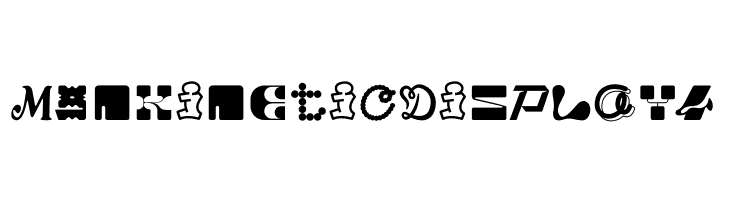
( Monroe Greco )
A bold, hand-drawn font with dotted accents, perfect for playful and lively designs.
( Fonts by Koczman Balint - magiquefonts.gportal.hu )
A classic serif font with a unique halftone texture for a vintage look.
( Monroe Greco )
A playful font made entirely of heart shapes, perfect for romantic or whimsical designs.
A modern, geometric font with bold, rounded characters.
( Monroe Greco )
A playful, handwritten font with a casual and friendly style.
( Fonts by Studio Morgana.id )
A bold, artistic display font with unique geometric and decorative elements.
( Fonts by Studio Morgana.id )
A bold, geometric display font with playful, artistic elements.
( Fonts by Studio Morgana.id )
A bold, eclectic display font with dynamic and playful letterforms.